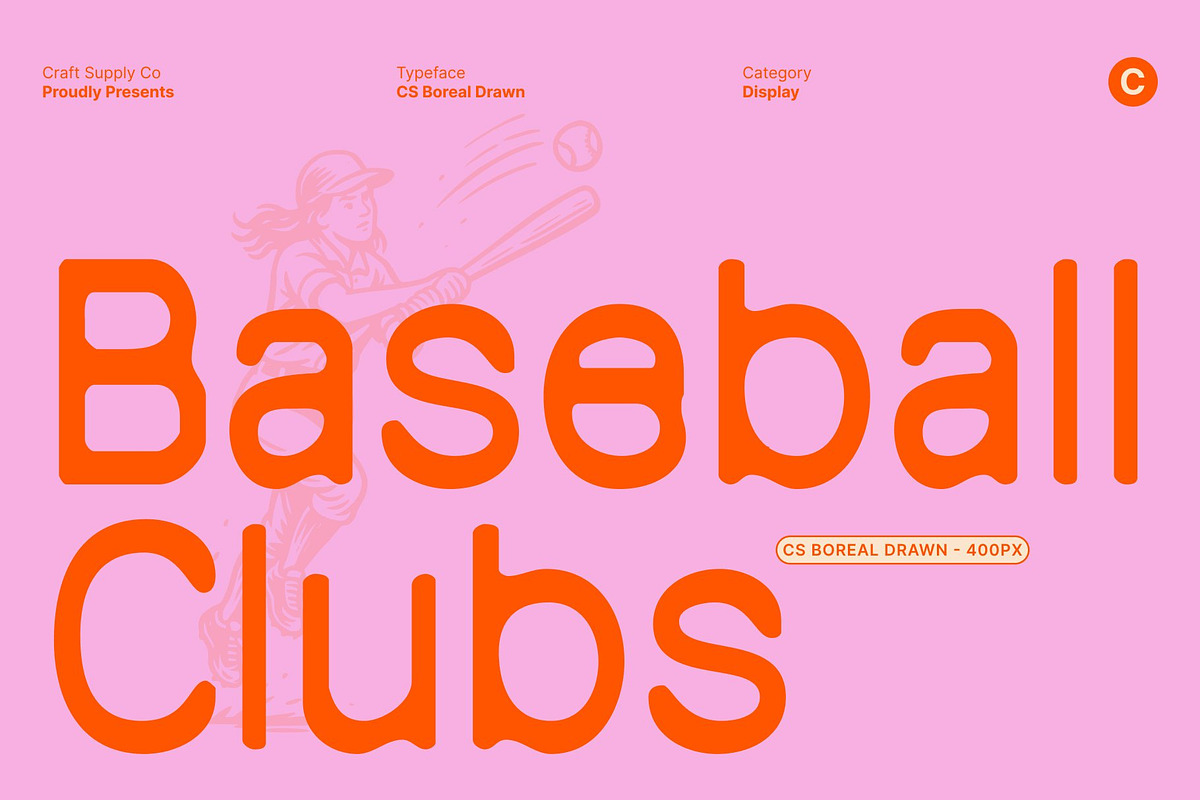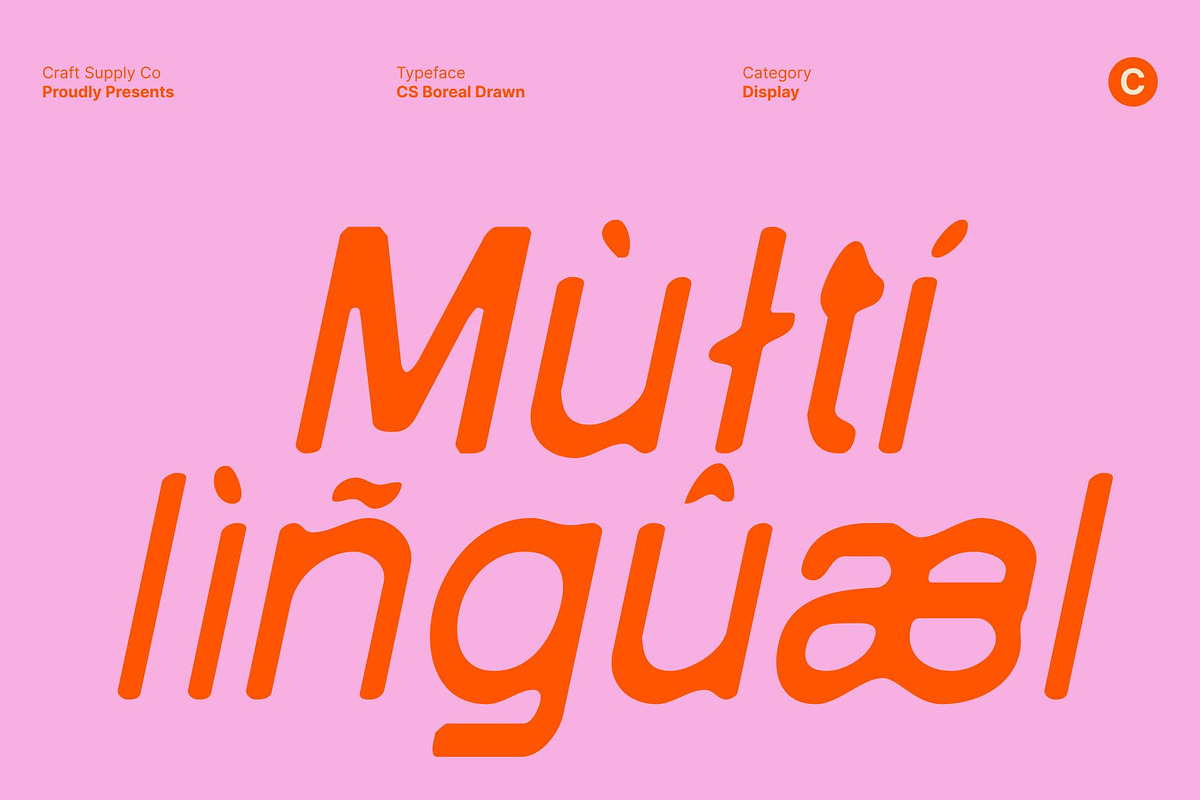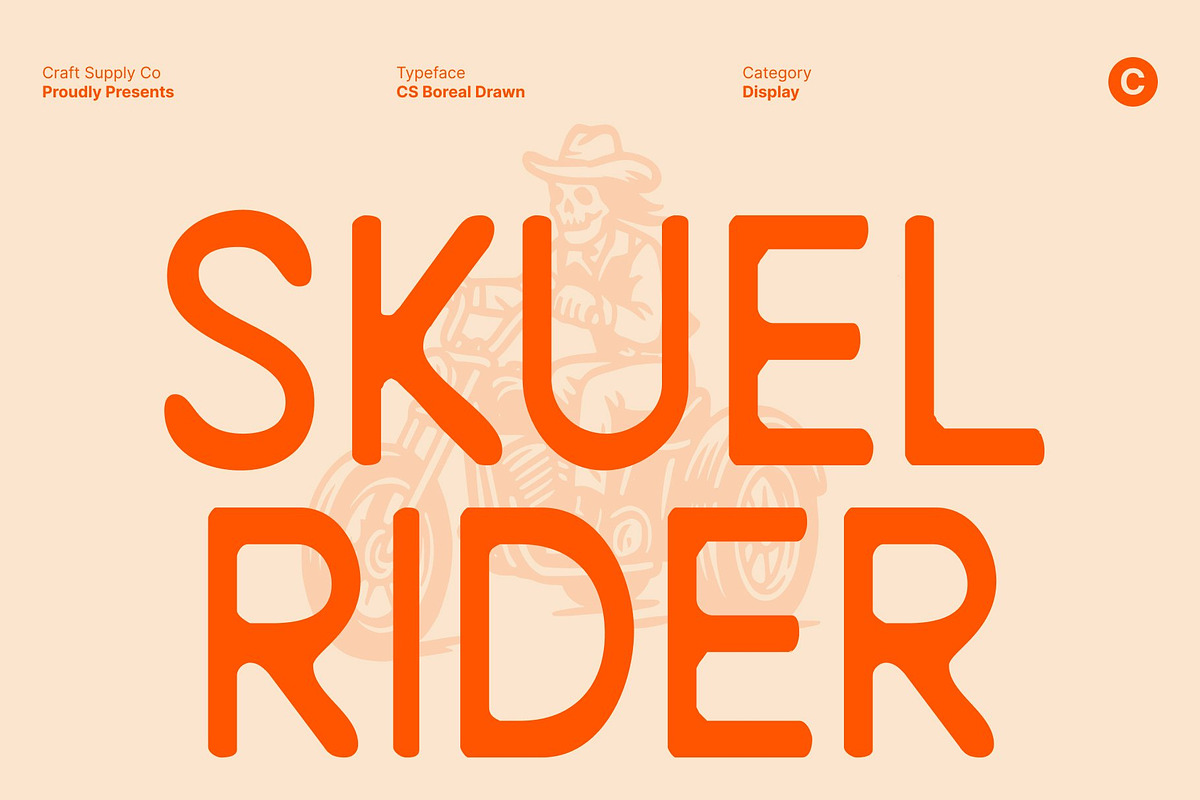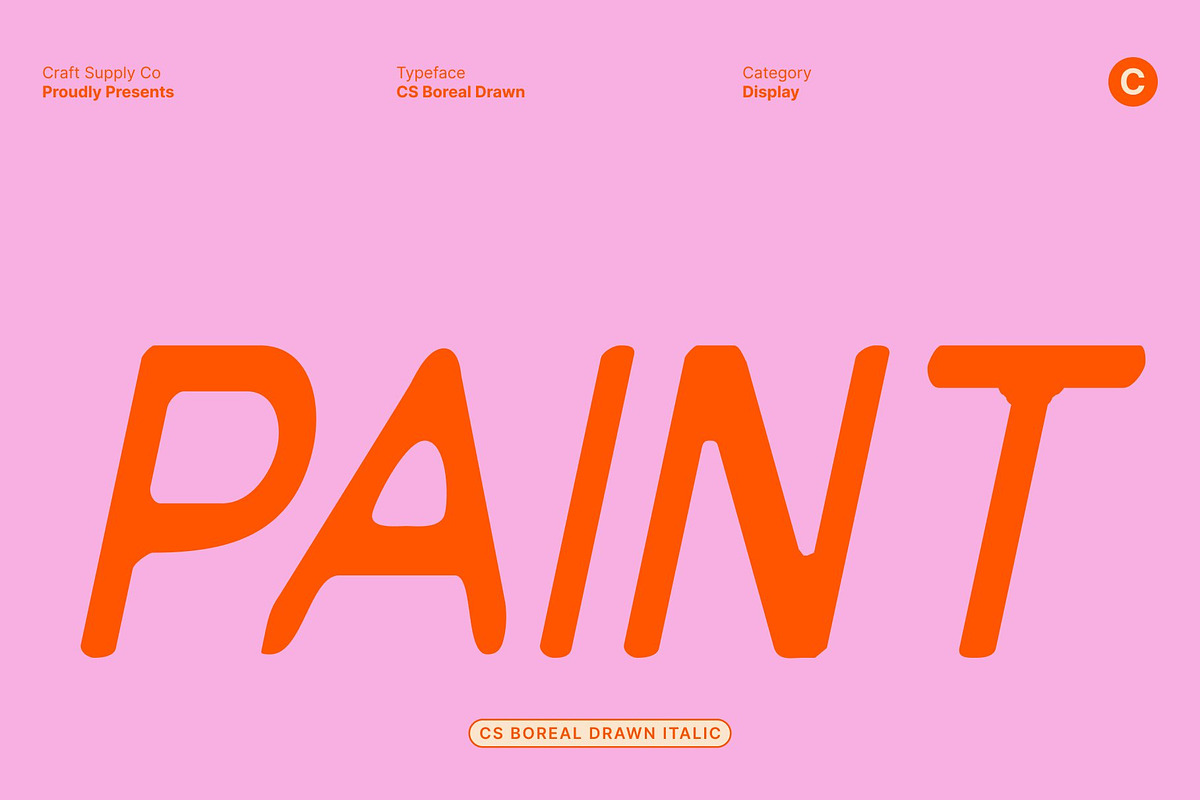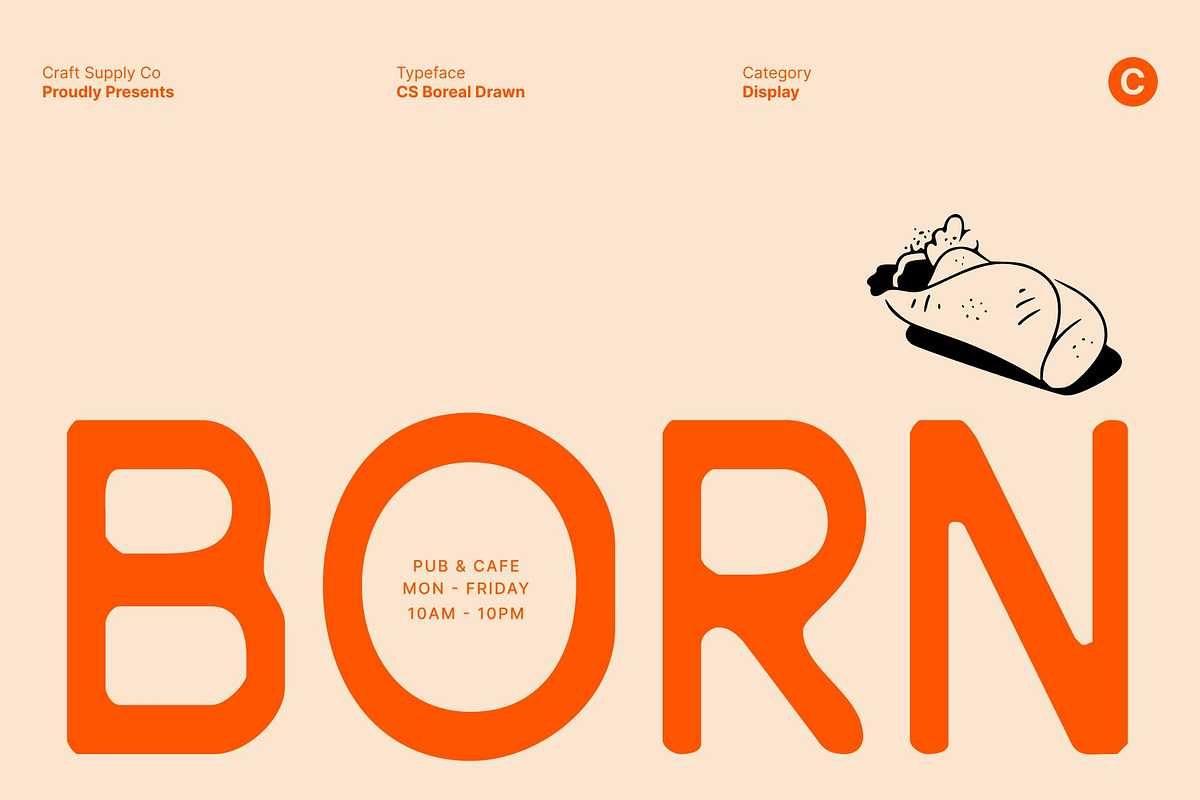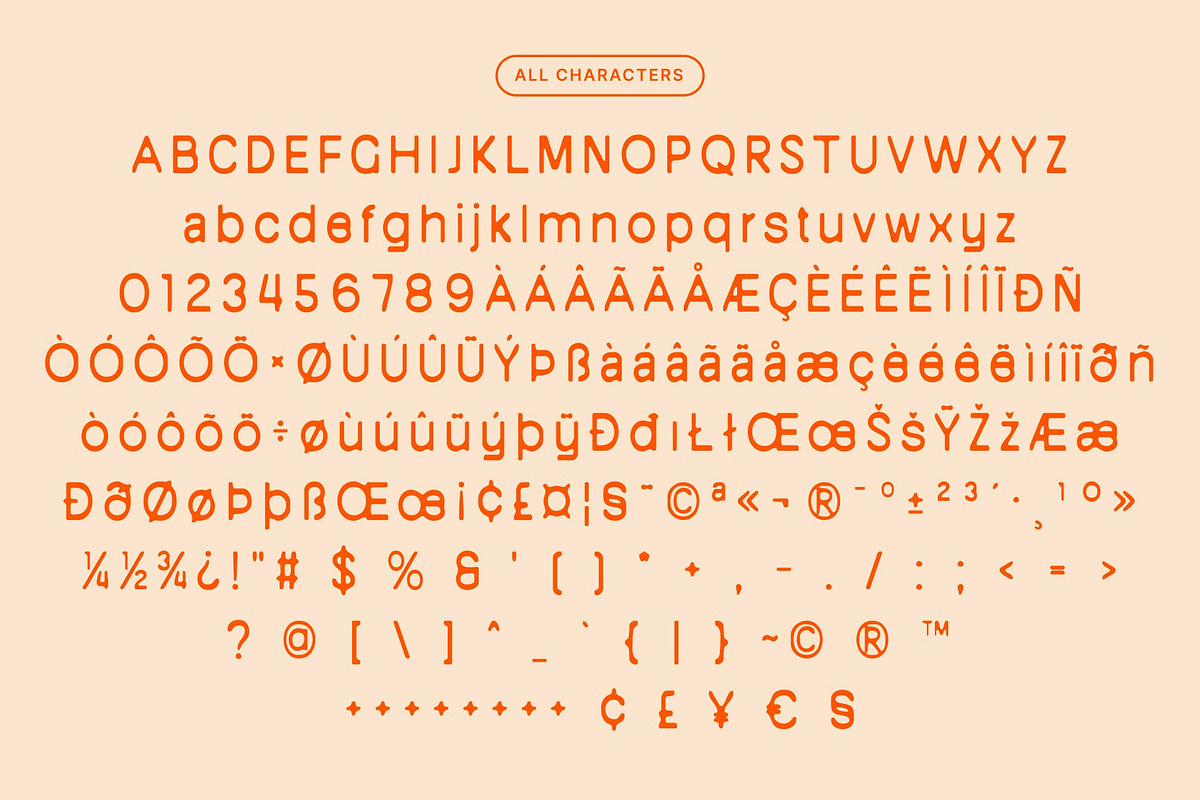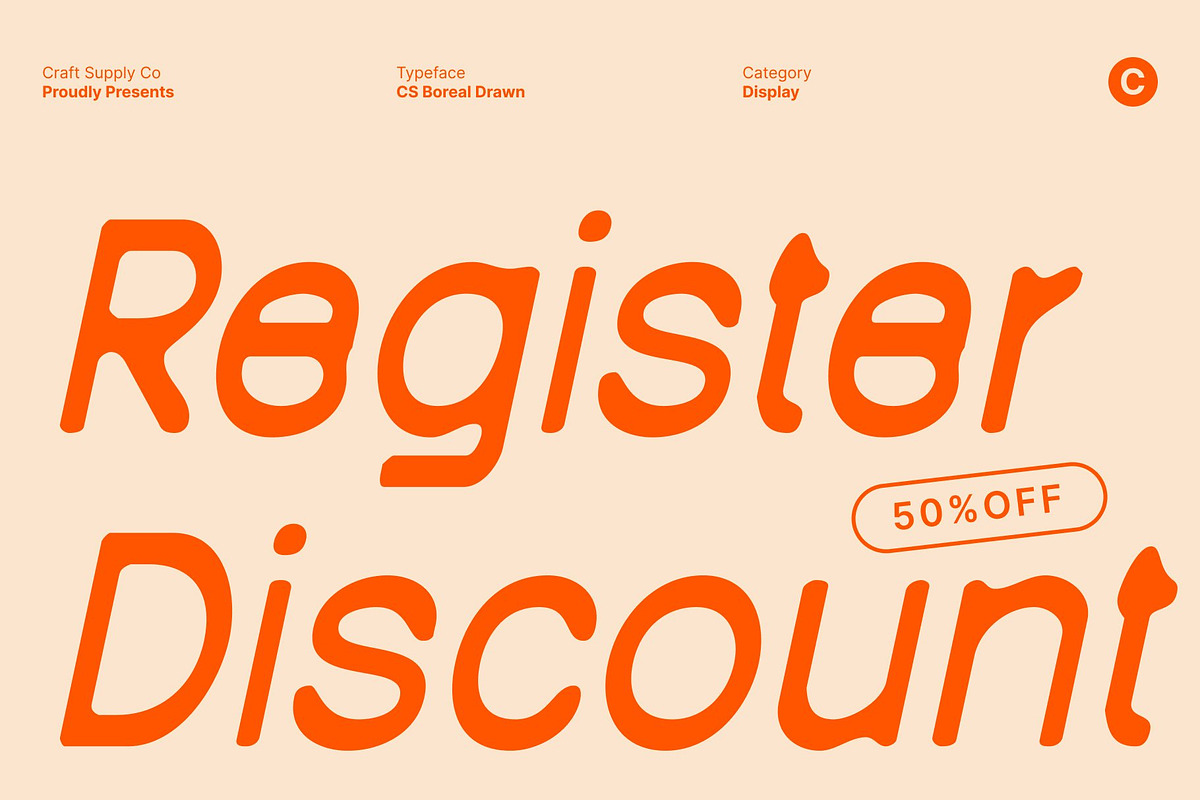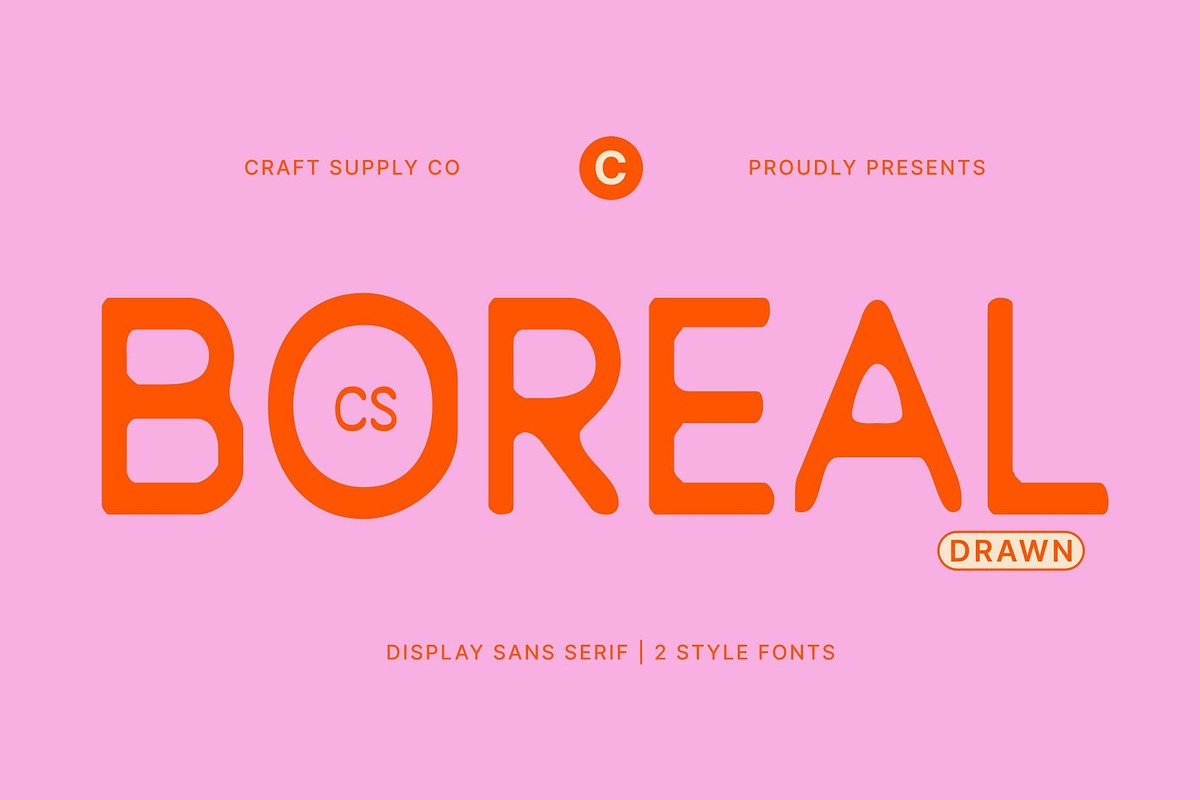
CS Boreal Drawn
CS Boreal Drawn – Modern Sans Serif with Fresh Quirky Character
Clean and Contemporary Sans Serif with Handcrafted Edge This is a modern sans serif font that blends clean construction with quirky, distinctive shapes and a subtle drawn finish. Designed to feel fresh, current, and expressive, this font delivers a contemporary look that stands out while remaining clear and professional. The drawn texture introduces a soft, handmade nuance that adds personality and warmth to its modern foundation.
Quirky Details with Clean, Drawn Structure Built on a precise sans serif framework, the letterforms are enhanced by playful quirks and gentle irregularities from the drawn effect. These details keep the font from feeling rigid or generic, giving it a relaxed, human quality. The balance between clean geometry and organic texture results in a font that feels thoughtful, creative, and visually engaging.
Fresh, Modern, and Approachable Personality This font communicates modern confidence with an approachable tone. Its fresh aesthetic feels innovative without being cold, making it ideal for designs that want to feel friendly, creative, and contemporary. The drawn character softens the overall appearance, helping designs feel more expressive and relatable.
Ideal for Branding and Digital Design Perfect for branding, logos, posters, and digital design, this font performs beautifully in headlines, visual identities, and supporting text. Whether used in print or on screen, it brings a clean yet expressive presence that feels modern, stylish, and uniquely handcrafted.